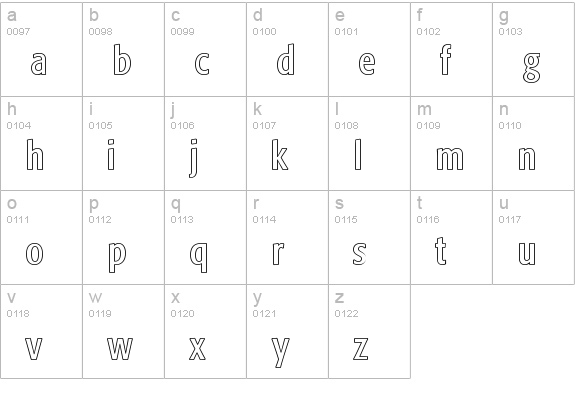
Formata Condensed Outline is a distinctive, condensed-width variant in the Formata typeface family \xE2\x80\x94 well suited to design and typography projects.
Formata Condensed Outline font is a sleek and modern typeface that exudes sophistication and style. Its condensed design gives it a contemporary and edgy look, making it perfect for a wide range of design projects. The clean and precise outlines of the letters make this font stand out, adding a touch of elegance to any text. Best of all, Formata Condensed Outline font is available for free download at FontsMarket.com. This means you can easily access this high-quality font without any cost, making it a valuable addition to your font collection. Whether you're designing a website, creating promotional materials, or crafting a logo, Formata Condensed Outline font is sure to elevate your project to the next level. Download this font today and give your designs a fresh and modern touch.